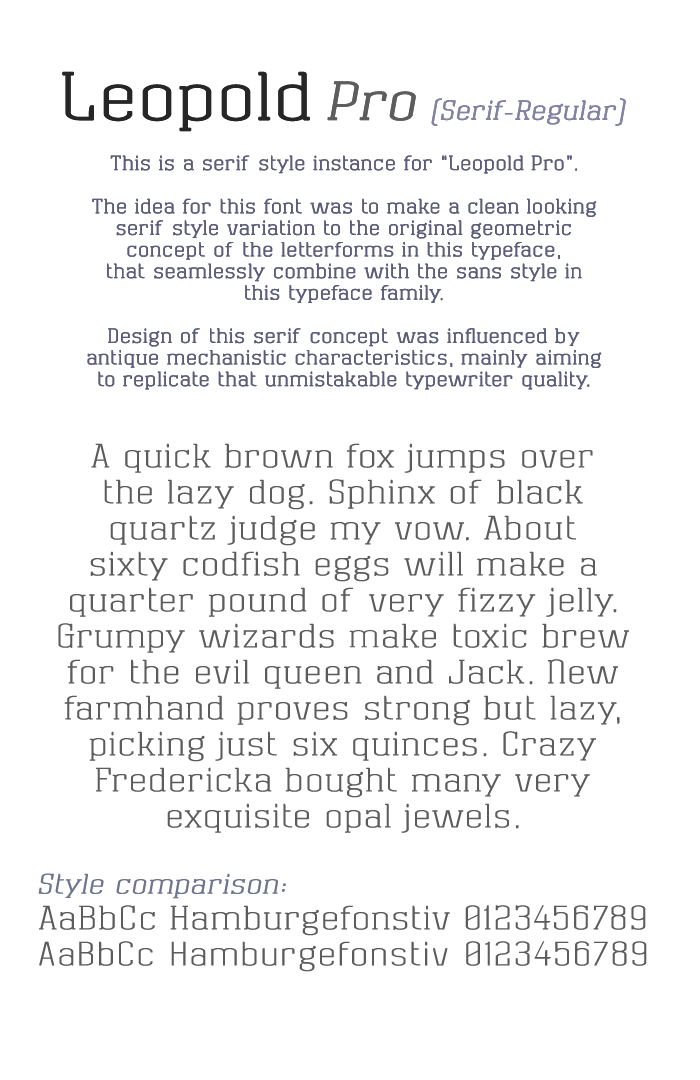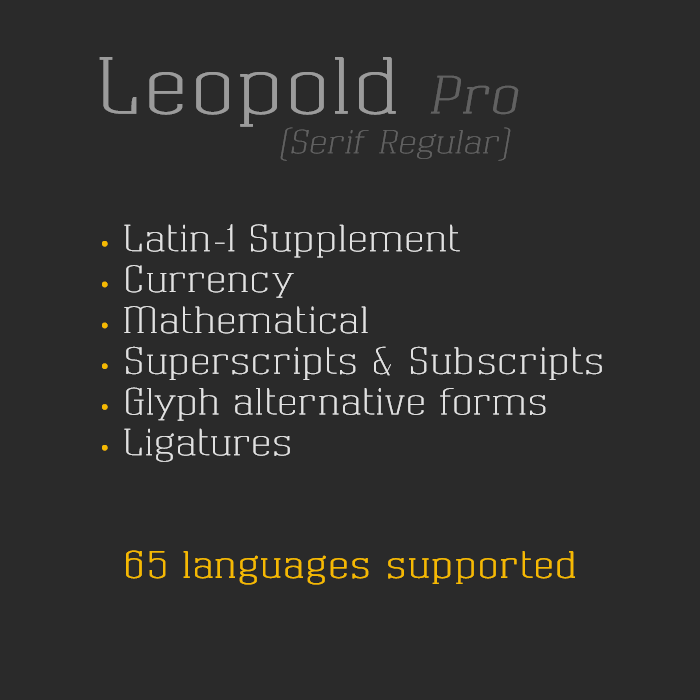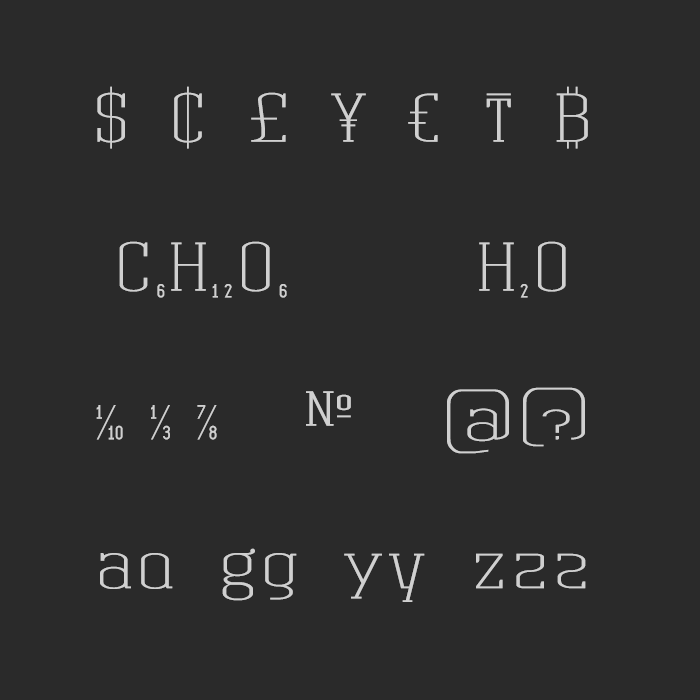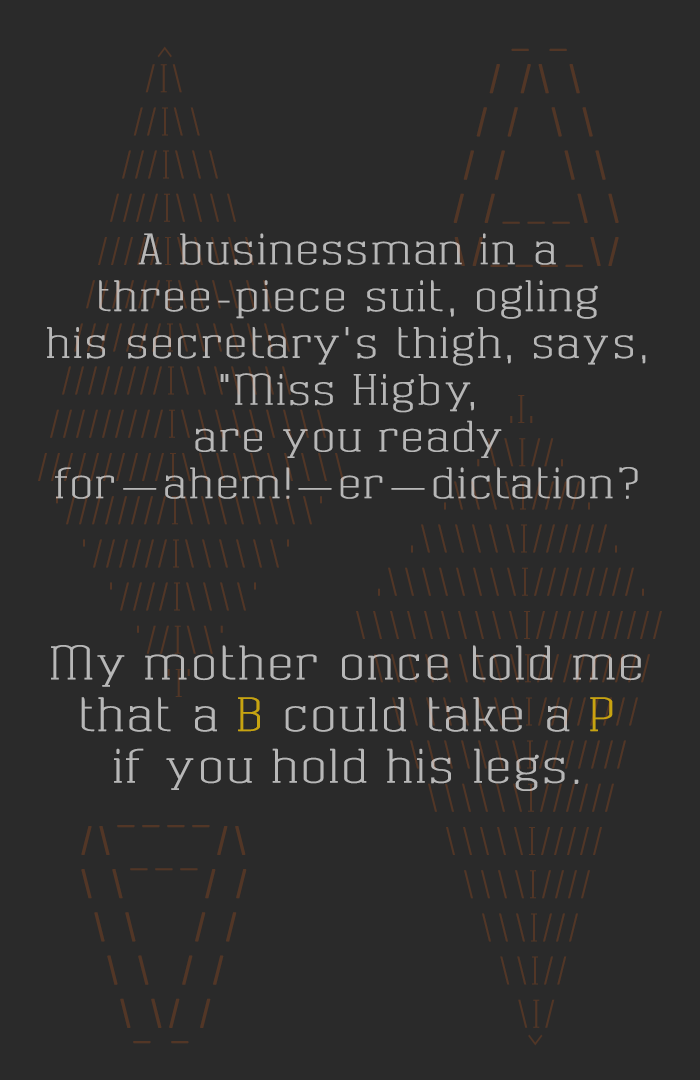
• LEOPOLD PRO (Serif-Regular) — Modern geometric condensed slab-serif
This font is the second style instance for the newly launched "Leopold Pro" typeface family, and is kicking off this new family of fonts.
The first one came as a minimalist, geometric sans serif style, this second font adds a serif style variation to the family. Both the "sans-regular" and "serif-regular" styles have identical visual properties for size and weight to allow seamless combination of the two, and as the name already suggests, represent the "Regular" style for the family.
Motivation for this was to craft a slab-serif style for the original geometric letterforms that has strong antique mechanistic qualities to add somewhat of a typewriter characteristic.
The relaxed optical proportion, short unbracketed serifs and open spacing results in clean and pleasant to look at text. Largely thanks to these properties it is still relatively legible in terms of a slab-serif style.
Two additional extra "Light" and "Bold" weight classess are also currently in development, both remain works in progress for now, but are expected to be included in the future.
I'm very pleased with the final result for this new style variation in the font family, let me know how you fellow structors think about it, thanks!
Fine, elegant, highly legible... I love it. And congrats on the TP, pal!